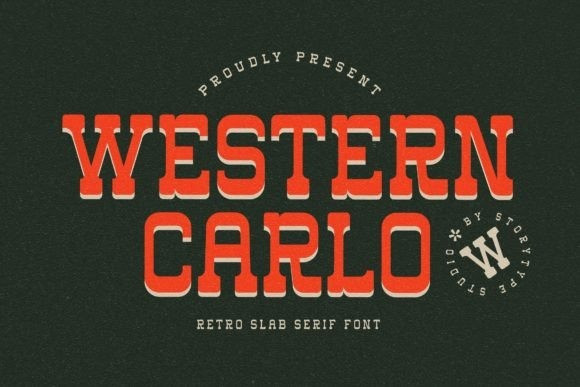
Western Carlo Font
Proudly present western carlo Typeface , created by Storytype,
A serif modern and classic typeface that has own unique style & modern look.
This typeface is perfect for an elegant & luxury logo, book or movie title design, fashion brand, magazine, clothes, lettering, quotes, and so much more.